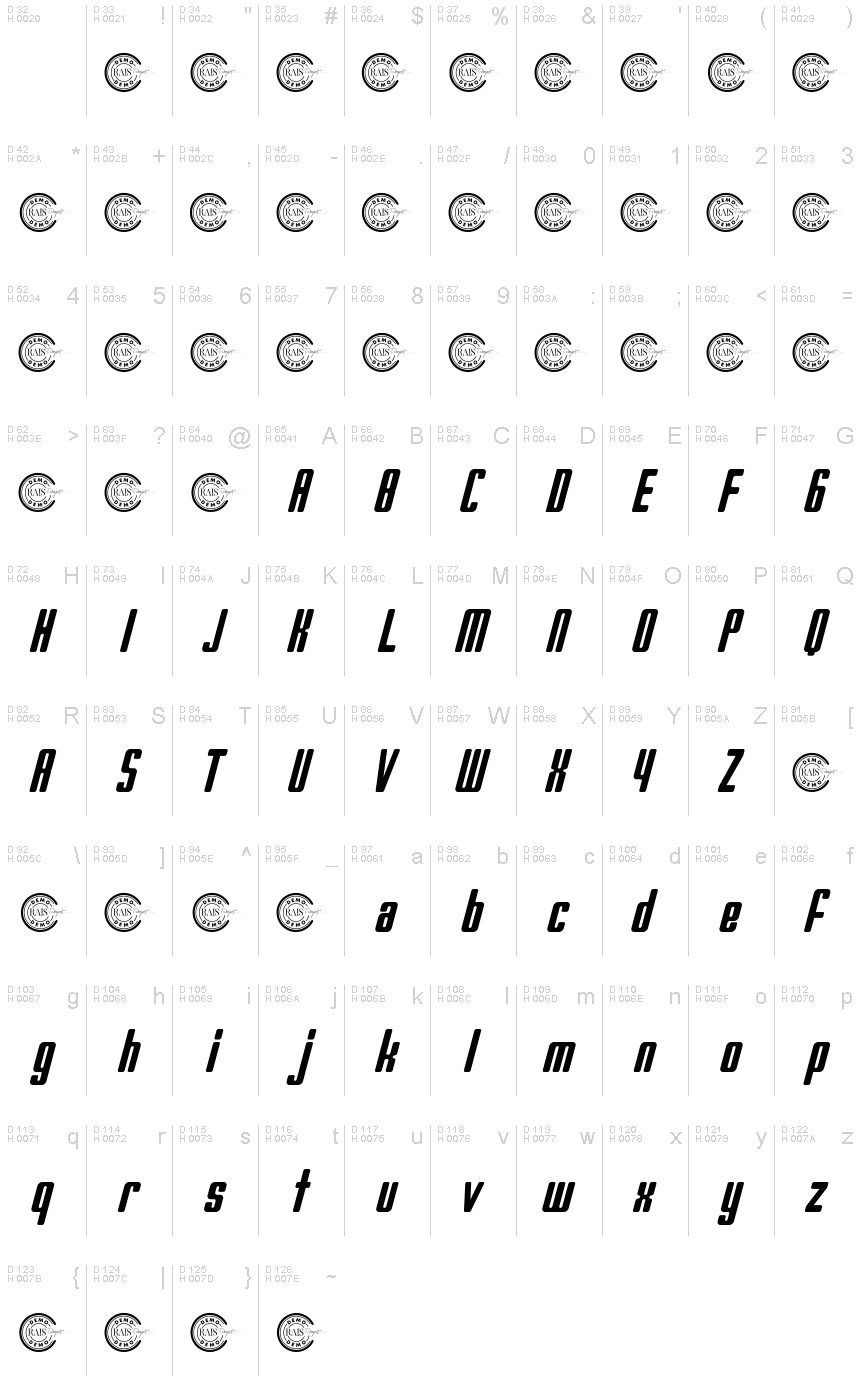
Panoramatic Demo Italic
Panoramatic Italic font is a captivating sans serif typeface crafted by RaisProject. This condensed font offers a strong impression to help your businesses and projects stand out. Add it now to your fonts’ library, and start brand new projects. It looks calm, bringing easy-going impressions therefore it feels more flexible to showcase any wordings.
Panoramatic Italic font is ideal for branding projects, homeware designs, product packaging - or simply as a stylish text overlay to any background image.